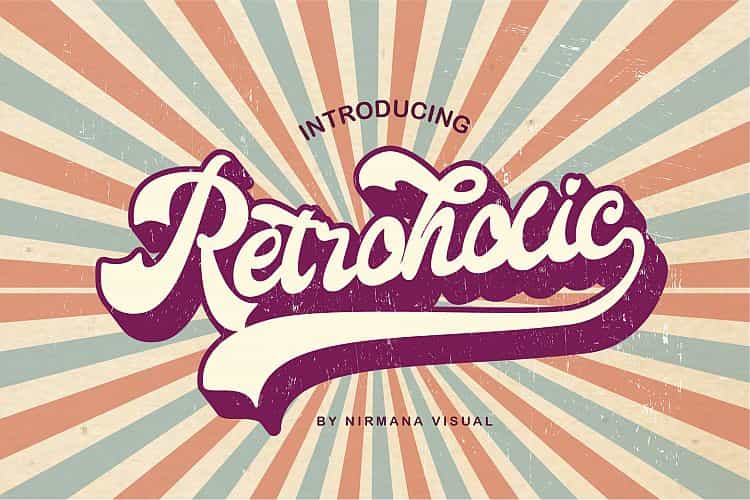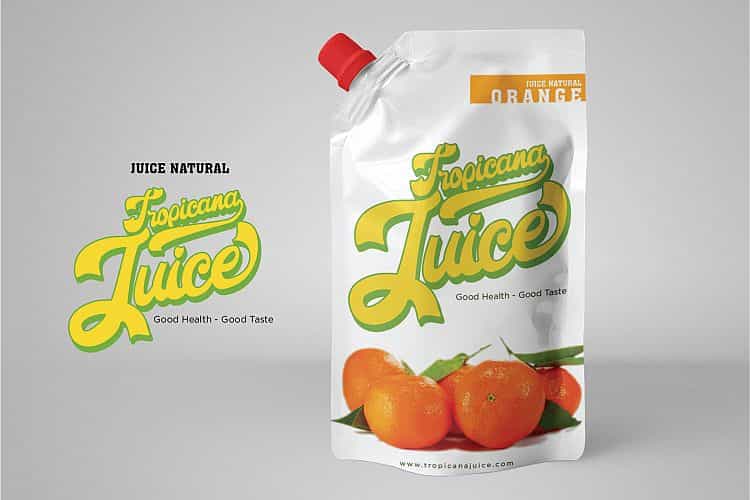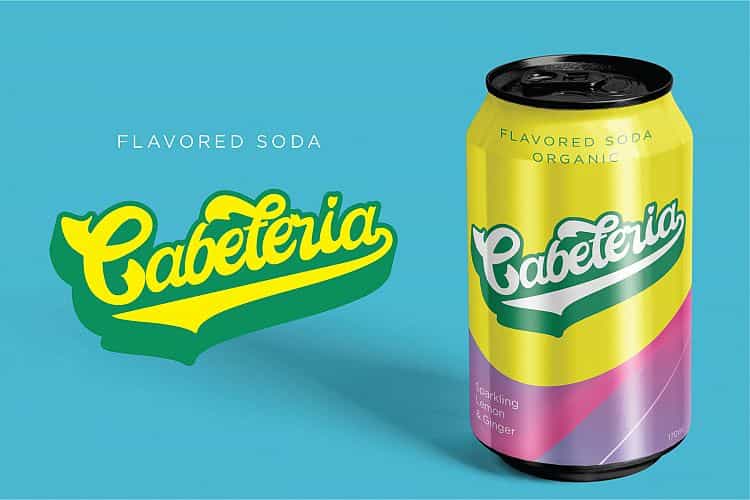
Discover Retroholic Retro Font, part of the Calligraphy Retro collection—a versatile and unique font perfect for adding a personal touch to your projects. Download it for free and enjoy crafting designs with style, from invitations to social media posts. This font is available exclusively for personal use, giving you the freedom to create without limits. Unlock your creativity with Retroholic Retro Font today!
Introducing a new retro font Retroholic. Retro style and Hand Lettering style are the two sources of inspiration that overlapped in this design. Retroholic Font was designed and shared by Nirmana Visual. Retroholic Retro Font – It is a font that was inspired by the 70s-80’s era, it can either be used to work as perfect companions or simply as strong standalone typefaces. It provides a great typographic connection for different design projects such as logos and branding, social media posts, advertisements & product designs.